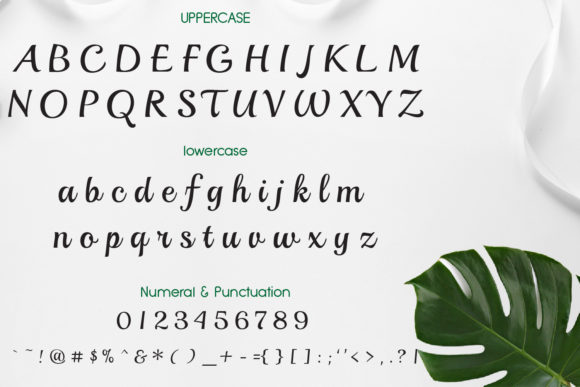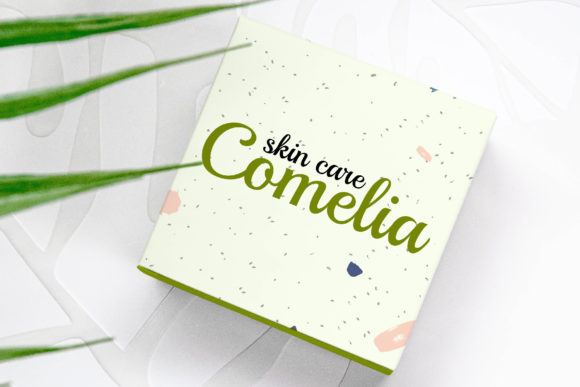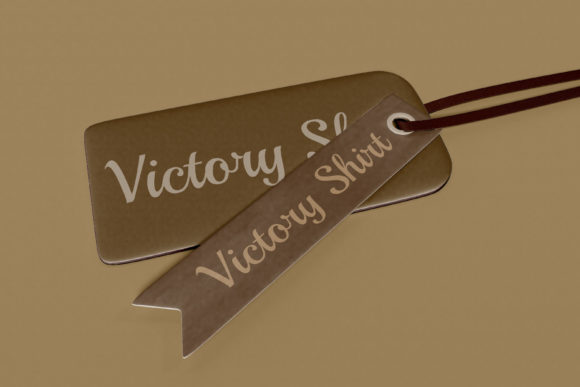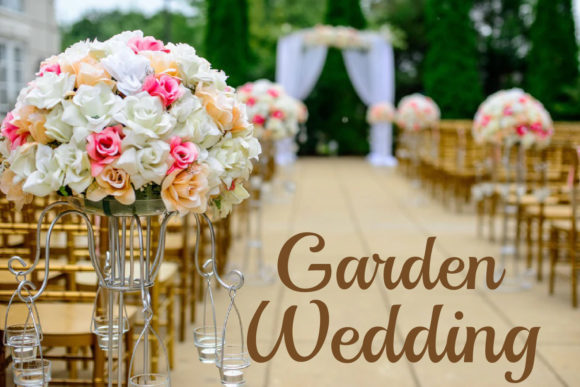
Coal Cliff Font: Elevate Your Designs with Elegance and Versatility
Are you on the hunt for a font that exudes elegance, sophistication, and versatility? Look no further than Coal Cliff Font, a delicate and handwritten typeface that is sure to capture your heart. With its distinct and well-balanced letters, Coal Cliff is a masterpiece that can elevate your designs to new heights.
The Beauty of Coal Cliff Font
Coal Cliff Font is a stunning example of handwritten typography, boasting a unique and refined aesthetic that sets it apart from other fonts. Its delicate lines, subtle curves, and carefully crafted letterforms create a sense of elegance and poise, making it perfect for a wide range of design applications.
One of the standout features of Coal Cliff Font is its exceptional versatility. Whether you’re designing a wedding invitation, a branding campaign, or a social media graphic, this font adapts seamlessly to any style or theme. Its neutral tone and classic design ensure that it will never go out of fashion, making it a valuable addition to any designer’s toolkit.
Key Features of Coal Cliff Font
- Delicate and elegant design: Coal Cliff Font features a refined, handwritten aesthetic that adds a touch of sophistication to any design.
- Distinct and well-balanced letters: Each letterform is carefully crafted to create a sense of harmony and balance, making it easy to read and visually appealing.
- Incredibly versatile: Coal Cliff Font can be used for a wide range of design applications, from weddings and branding to social media and more.
- Neutral tone: This font’s neutral tone ensures that it will never go out of fashion, making it a valuable investment for designers.
Uses for Coal Cliff Font
Coal Cliff Font is an incredibly versatile typeface that can be used for a wide range of design applications. Here are just a few ideas to get you started:
- Wedding designs: Create beautiful wedding invitations, programs, and signage with Coal Cliff Font’s elegant and refined aesthetic.
- Branding and packaging: Use Coal Cliff Font to add a touch of sophistication to your brand’s packaging, labels, and marketing materials.
- Social media graphics: Elevate your social media presence with stunning graphics featuring Coal Cliff Font.
- Stationery and paper goods: Create beautiful stationery, notebooks, and paper goods with Coal Cliff Font’s delicate and elegant design.
Tips for Using Coal Cliff Font
To get the most out of Coal Cliff Font, here are a few tips to keep in mind:
- Pair it with contrasting fonts: Combine Coal Cliff Font with bold, sans-serif fonts to create visual interest and contrast.
- Experiment with colors: Try pairing Coal Cliff Font with a range of colors to find the perfect combination for your design.
- Use it sparingly: While Coal Cliff Font is incredibly versatile, it’s best to use it sparingly to avoid overwhelming your design.
Coal Cliff Font is a stunning, elegant, and versatile typeface that is sure to capture your heart. With its delicate lines, subtle curves, and carefully crafted letterforms, this font is perfect for designers and crafters looking to elevate their designs. Whether you’re working on a wedding design, branding campaign, or social media graphic, Coal Cliff Font is the perfect choice. So why wait? Fall in love with Coal Cliff Font and start creating spectacular designs today!